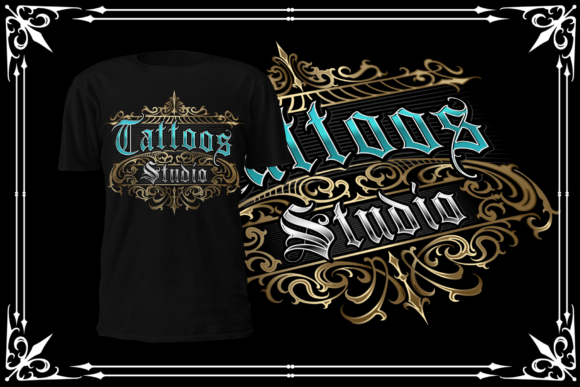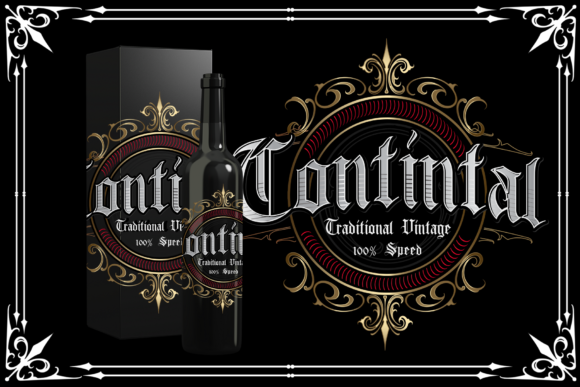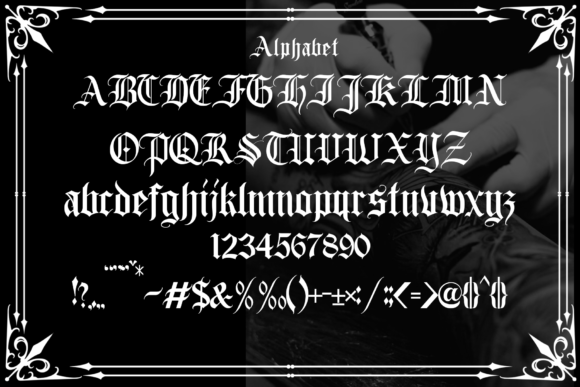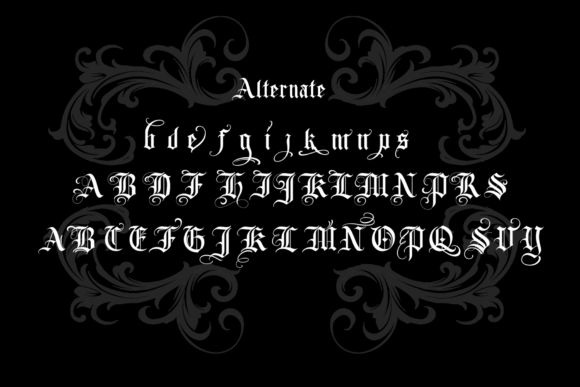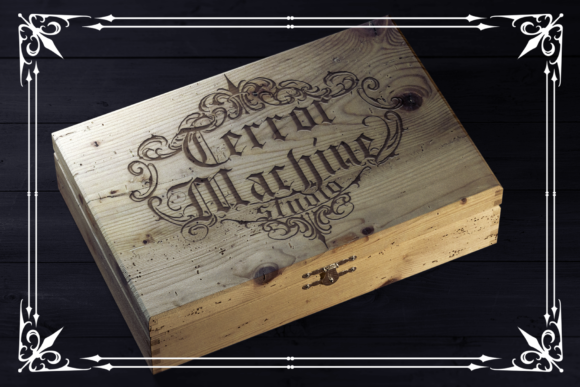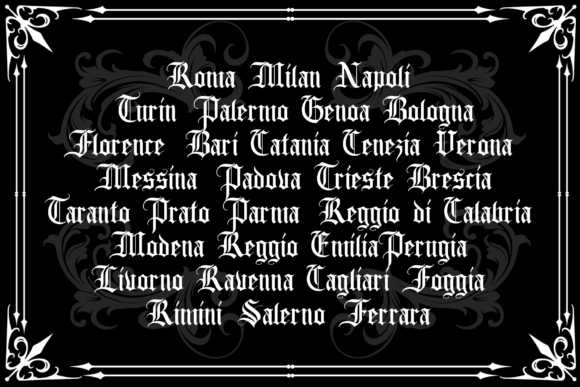
Unleashing Your Inner Artist: Discover the Magic of Bohemian Dreams Font
Have you ever sat at your desk, surrounded by half-finished projects and scattered inspiration boards, feeling like your creativity is stuck in neutral? The blank page stares back at you, taunting you to bring your vision to life. This is where the Bohemian Dreams Font comes in – a bold, elegant blackletter font that will transport you to a world of artistic expression and limitless possibilities.
With its PUA encoded design, you’ll have access to a world of glyphs and swashes that will take your projects to the next level. Whether you’re a graphic designer, calligrapher, or simply a lover of all things beautiful, the Bohemian Dreams Font is the perfect addition to your creative arsenal. Its unique style and versatility make it a valuable tool for designers looking to add a touch of sophistication and whimsy to their work.
- Font Family: Bohemian Dreams
- Font Size: 6,000+ glyphs, covering a wide range of languages and characters
- Unique Characteristics: Hand-drawn, whimsical, and elegant design, perfect for creative projects and artistic typography
Bohemian Dreams Font Review
Overall, I think the Bohemian Dreams Font is a unique and eye-catching choice for those looking to add a touch of whimsy to their design projects. ✨ The font’s organic, hand-drawn feel immediately stands out and can help to create a sense of personality and charm.
- ✨ The font’s irregularities and imperfections add a touch of authenticity and make it feel more like a real handwritten font.
- ✨ The font’s bold and playful strokes make it perfect for titles, headings, and other prominent text elements.
- ✨ The font’s extensive character set includes a wide range of punctuation and special characters, making it easy to use in a variety of contexts.
- ⚠️ The font’s irregularities can also make it difficult to read in certain contexts, such as in small text sizes or when used in combination with other fonts.
- ⚠️ The font’s organic feel can sometimes make it difficult to achieve consistent spacing and alignment.
In terms of overall impression, I think the Bohemian Dreams Font is a great choice for designers who want to add a touch of personality and whimsy to their projects. While it may have some limitations, its unique feel and extensive character set make it a valuable addition to any designer’s toolkit.
For best results, pair the Bohemian Dreams font with bold, bright colors and eclectic graphics to create a unique and eye-catching design. Use it for titles, headings, and short paragraphs to add visual interest to your project.
The Bohemian Dreams font is perfect for:
- Travel and adventure branding
- Artistic and creative projects
- Bohemian-inspired weddings and events
- Free-spirited and eclectic designs